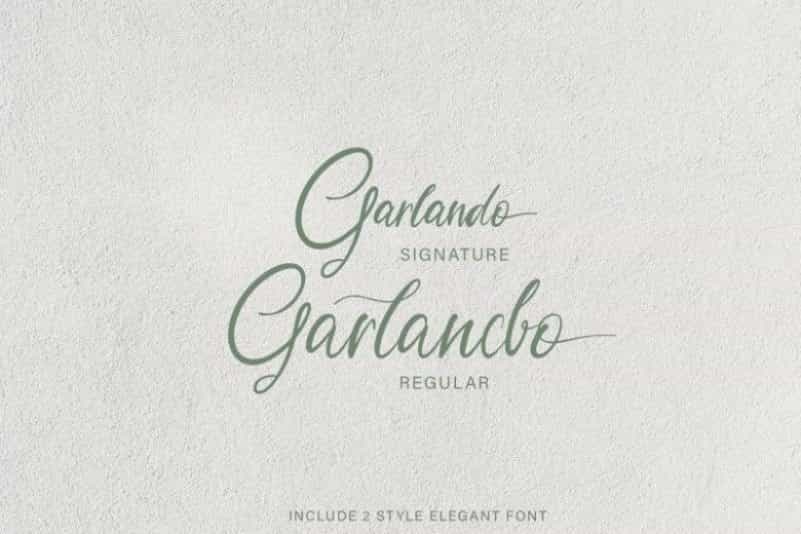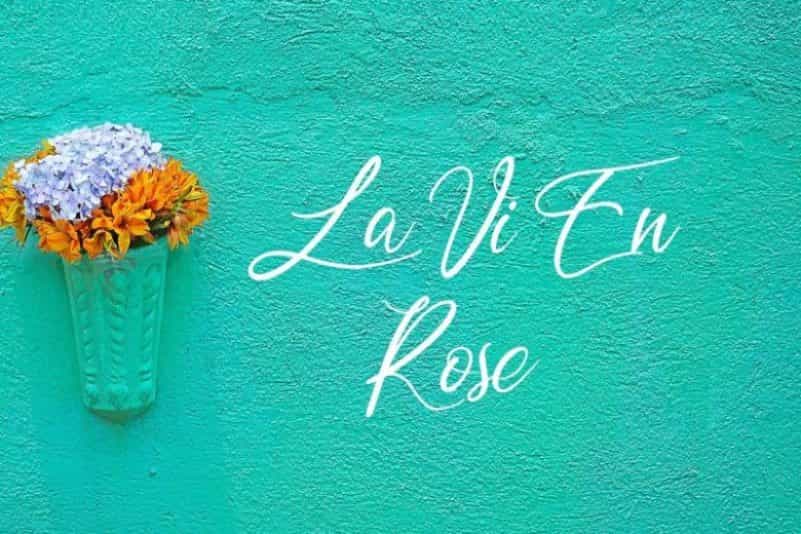
Garlando Font is a new handwritten fashionable copperplate calligraphy fonts, which contains the copperplate and modern fonts, vintage and noble atmosphere. Garlando font specially suitable for branding, logos, wedding designs, media posts, advertisements, product packaging, product designs, labels, photography, watermarks, invitation cards, stationeries, and any project require handwritten dishes.